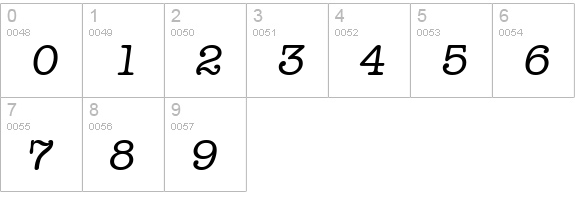
TypewriterSerial-Italic Font Details
TypewriterSerial-Italic is a distinctive, italic variant in the TypewriterSerial typeface family \xE2\x80\x94 well suited to design and typography projects.
Introducing TypewriterSerial-Italic font, a classic and timeless typeface that brings a touch of vintage charm to your projects. The elegant slant and distinctive typewriter-inspired design of this font make it perfect for adding a stylish and sophisticated touch to your designs. What sets TypewriterSerial-Italic font apart is its unique blend of old-school elegance and modern appeal. The italicized style adds a dynamic and eye-catching element to your text, making it ideal for headlines, titles, and other attention-grabbing elements. Best of all, TypewriterSerial-Italic font is available for free download at FontsMarket.com. Whether you're working on a personal project or a professional design, this font is a versatile and stylish choice that will elevate your work to the next level. Download TypewriterSerial-Italic font today and add a touch of classic sophistication to your designs.